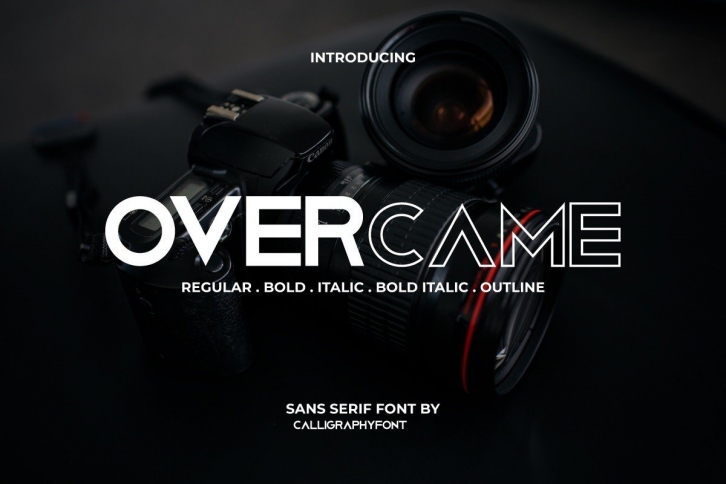
Overcame is a bold and modern display font. No matter the topic, this font will be an incredible asset to your fonts’ library, as it has the potential to elevate any creation.Â